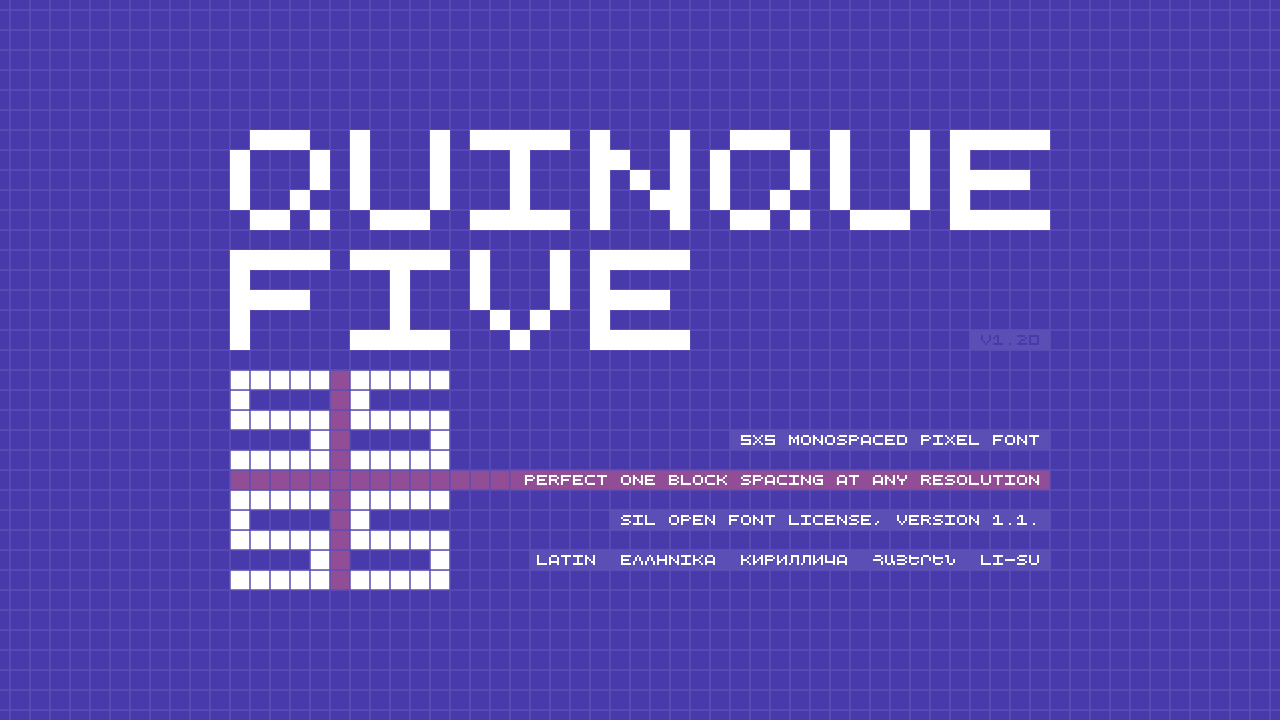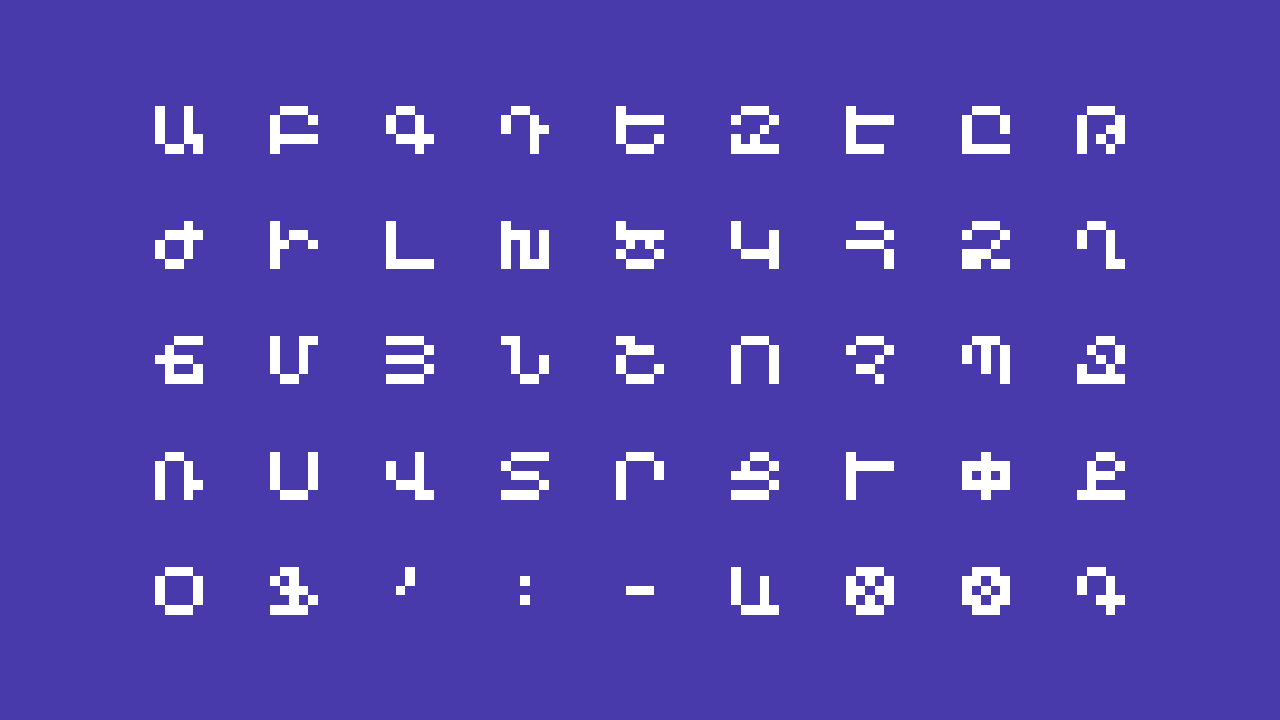
5x5 Monospaced Pixel Font.
The font QuinqueFive contains 1047 glyphs.
Support for 58 languages
Aja, Albanian, Armenian, Aromanian, Belarusian, Bulgarian, Catalan, Croatian, Dagbani, Danish, Duala, Dutch, English, Estonian, Ewe, Finnish, Fon, Fula, German, Greek, Hungarian, Icelandic, Indonesian, Italian, Jula, Kazakh, Khoekhoe, Koyra Chiini, Koyraboro Senni, Kyrgyz, Latin, Latvian, Lithuanian, Maasai, Maltese, Mongolian, Northern Sami, Norwegian, Polish, Russian, Scottish Gaelic, Serbian, Slovenian, Spanish, Swedish, Tagalog, Tatar, Tlapanec, Turkmen, Ukrainian, Uzbek, Vai, Walser German, West Frisian, Zarma, Zulu.
Recommended settings for the font
Use it only in sizes multiples of 5px/4pt, and turn anti-aliasing off.
Designed by GGBotNet
2025-11-20 - v1.20 / Introduced support for the Armenian and Fraser alphabets, along with 190 new glyphs.
2023-04-11 - v1.1 / Removed smoothing. Added N'Ko script support. Added 97 new glyphs.
2022-10-13 - v1.0 / Added 180 new glyphs.
At these sizes 5px 10px 20px 40px (multiples of 5px) there is no anti-aliasing.